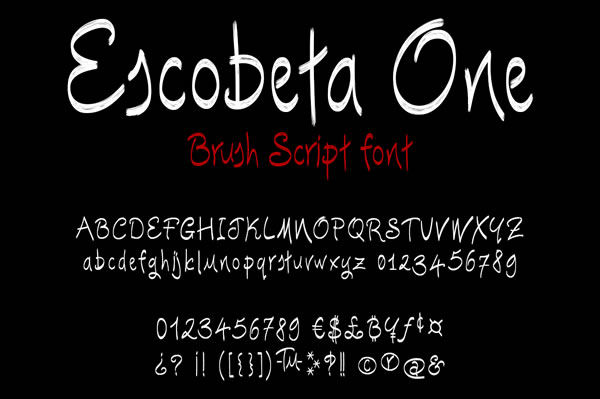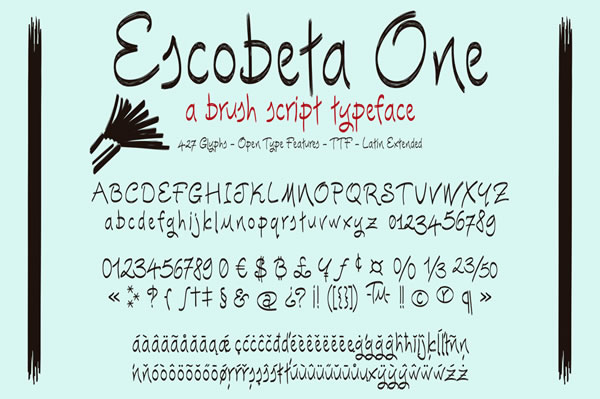
Introduction to Escobeta One Font
As a designer, have you ever found yourself staring at a blank page, searching for the perfect typography to bring your creative project to life? The moment of truth arrives when you stumble upon a font that not only complements your design but elevates it to new heights. For those who crave that extra oomph, we’re excited to introduce you to the Escobeta One Font – a game-changing, disconnected handwritten typography that’s about to become your new design BFF.
Handcrafted with brush bristles, this high-quality font is perfect for designing posters, catchy headlines, commemorations, invitations, or editorial design that demands a touch of elegance and sophistication. Whether you’re working on a commercial project or a personal creative endeavor, the Escobeta One Font is an invaluable resource that will help you stand out from the crowd.
Key Features of Escobeta One Font
- Unique Design: Escobeta One Font offers a distinctive and modern design that is perfect for creative projects requiring a high-quality typography solution.
- Perfect for Digital Projects: With its clean and modern design, Escobeta One Font is ideal for digital projects such as website headers, social media graphics, and mobile app interfaces.
Honest Review: Escobeta One Font
I recently stumbled upon the Escobeta One Font and was excited to dive in and see what it has to offer. As a designer, I’m always on the lookout for high-quality design resources that can elevate my creative projects.
Overall, I’m impressed with the Escobeta One Font. While it may have some limitations, it’s a great design resource for personal or small-scale projects. Its high quality and transparent background make it an excellent choice for designers looking to elevate their creative work.
Tips for Getting the Most Out of Escobeta One Font
Use the font in combination with other design elements to create a cohesive look. Experiment with different font sizes and colors to add emphasis and visual interest. You can also use the font to create custom logos and branding materials.
Common Use Cases for Escobeta One Font
The Escobeta One Font is perfect for a variety of creative projects, including logos, branding materials, and marketing materials. It’s also great for creating custom graphics and illustrations. With its transparent background, the font is ideal for creating visually appealing designs that stand out from the crowd.